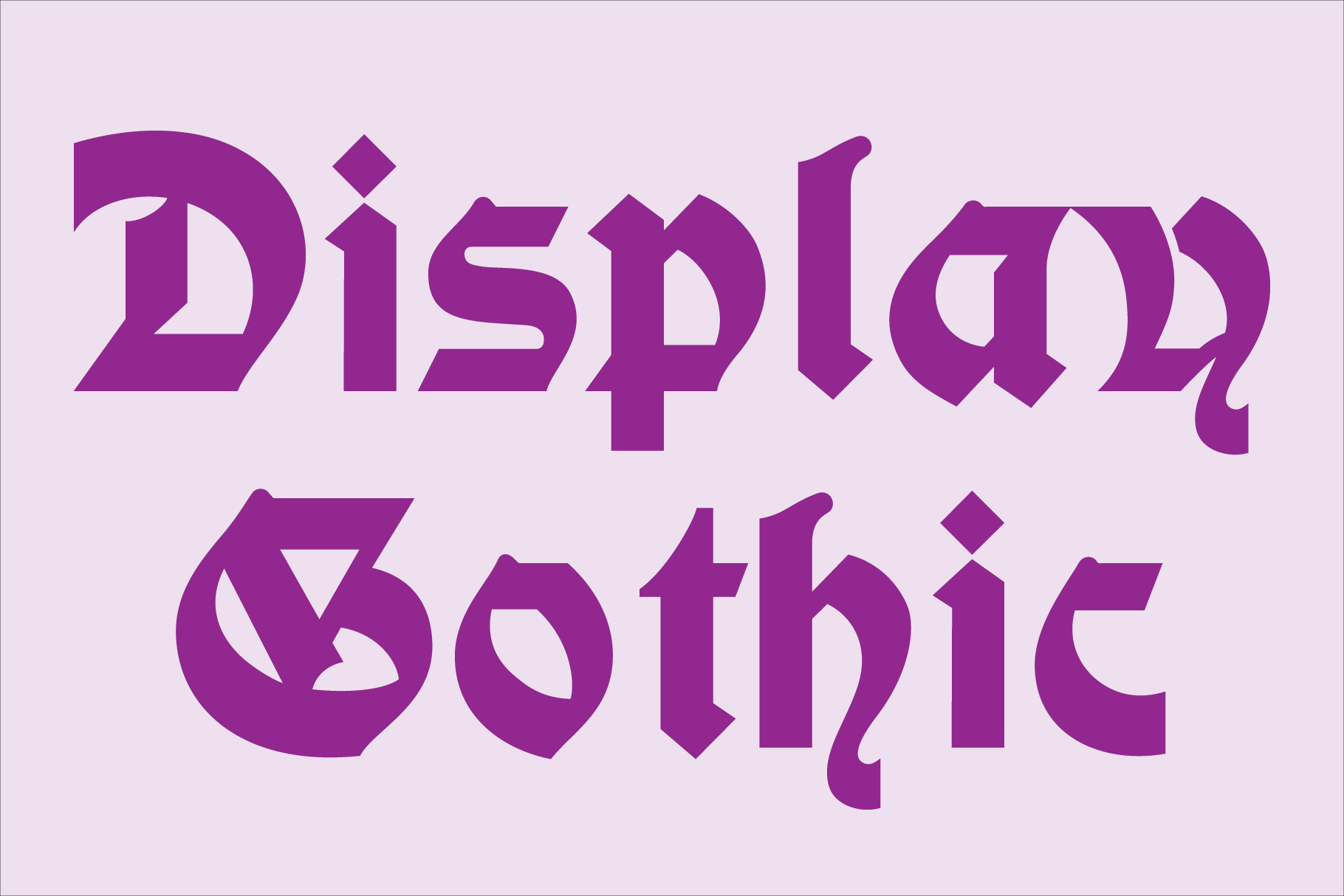
Display Gothic Font
Display Gothic is a display font not intended for text use. It was designed specifically for display, headline, logotype, branding, and similar applications. It has an uppercase and lowercase alphabets, numbers, dollar, pound and euro signs, and basic punctuation.